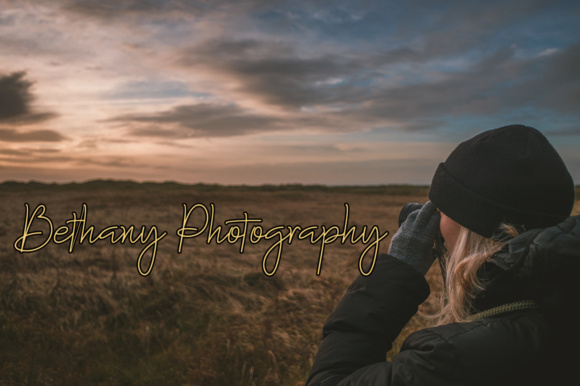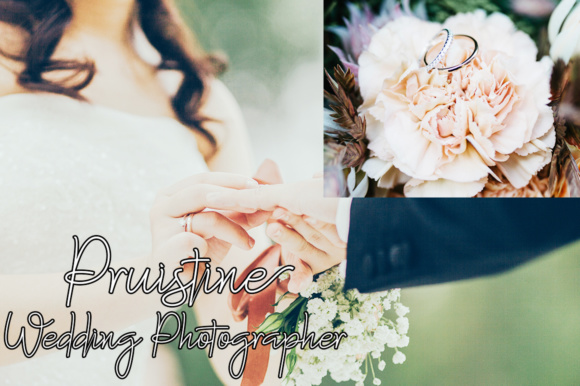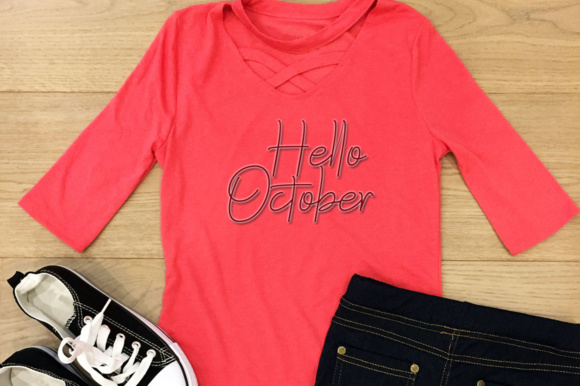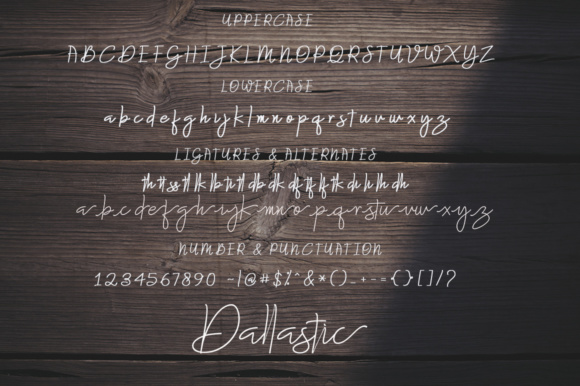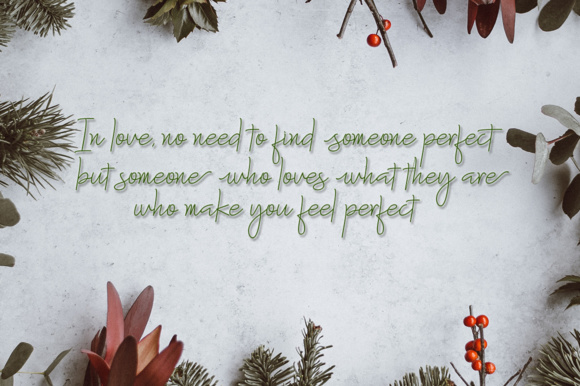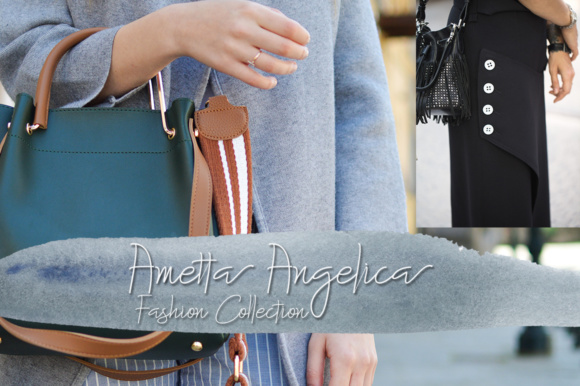
Dallastic Script Font: Elevate Your Designs with a Vintage yet Clean Style
The Dallastic Script Font is a stunning addition to any designer’s toolkit. This beautiful, legible script is ideal for a wide range of projects, from crafting elegant logos and branding materials to creating eye-catching posters and invitations. With its unique blend of vintage charm and clean lines, the Dallastic Script Font is the perfect way to add a touch of sophistication and elegance to your work.
What Makes the Dallastic Script Font Special?
The Dallastic Script Font stands out from the crowd with its distinctive, hand-crafted feel. Each letter is carefully designed to create a sense of fluidity and movement, making it perfect for designs that require a touch of personality and whimsy. The font’s vintage inspiration adds a sense of nostalgia and timelessness, while its clean lines and precise curves ensure that it remains highly legible, even at smaller sizes.
Key Features of the Dallastic Script Font
- Beautifully crafted letters: Each letter in the Dallastic Script Font is meticulously designed to create a sense of elegance and sophistication.
- Legible and clean: Despite its vintage inspiration, the Dallastic Script Font remains highly legible, making it perfect for use in a wide range of projects.
- Vintage charm: The font’s unique blend of classic and modern elements gives it a distinctive, timeless feel that’s sure to capture attention.
- Highly versatile: The Dallastic Script Font is suitable for use in a wide range of projects, from logos and branding materials to posters, invitations, and more.
Uses for the Dallastic Script Font
The Dallastic Script Font is incredibly versatile, making it perfect for use in a wide range of design projects. Here are just a few ideas to get you started:
- Logos and branding: Use the Dallastic Script Font to create elegant, sophisticated logos and branding materials that will help your business stand out.
- Posters and flyers: Add a touch of vintage charm to your posters and flyers with the Dallastic Script Font, perfect for promoting events, products, or services.
- Invitations and greeting cards: Create beautiful, eye-catching invitations and greeting cards with the Dallastic Script Font, perfect for weddings, birthdays, and other special occasions.
- Packaging and labels: Use the Dallastic Script Font to add a touch of elegance and sophistication to your packaging and labels.
Tips for Using the Dallastic Script Font
To get the most out of the Dallastic Script Font, here are a few tips to keep in mind:
- Use it sparingly: While the Dallastic Script Font is beautiful, it can be overwhelming if used too much. Use it sparingly to add a touch of elegance and sophistication to your designs.
- Experiment with colors: The Dallastic Script Font looks great in a range of colors, from classic black and white to bold, bright hues. Experiment with different colors to find the perfect look for your design.
- Pair it with other fonts: The Dallastic Script Font pairs beautifully with other fonts, from clean sans-serifs to elegant serifs. Experiment with different font combinations to find the perfect look for your design.
The Dallastic Script Font is a beautiful, versatile addition to any designer’s toolkit. With its unique blend of vintage charm and clean lines, it’s the perfect way to add a touch of elegance and sophistication to your work. Whether you’re creating logos and branding materials, posters and flyers, or invitations and greeting cards, the Dallastic Script Font is sure to elevate your designs and capture attention.